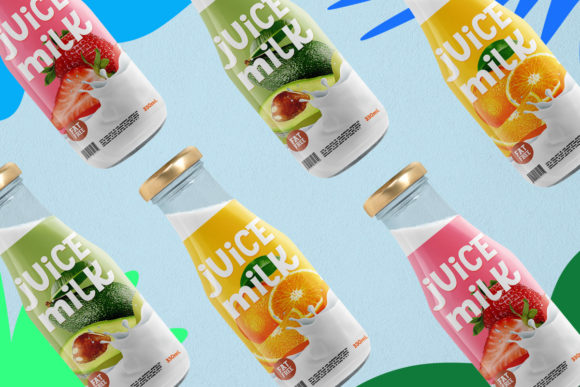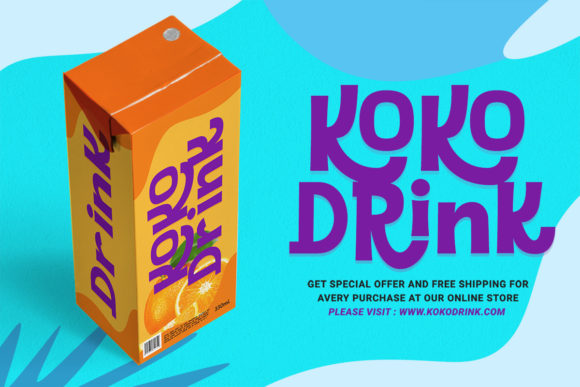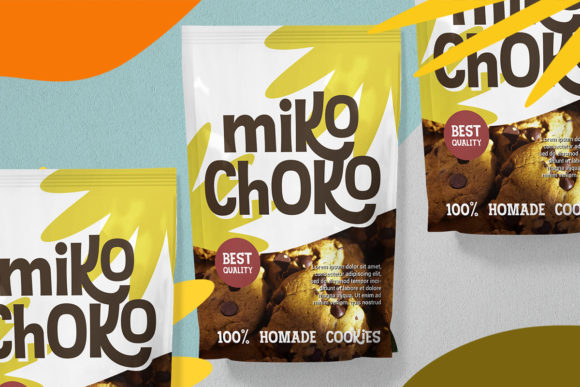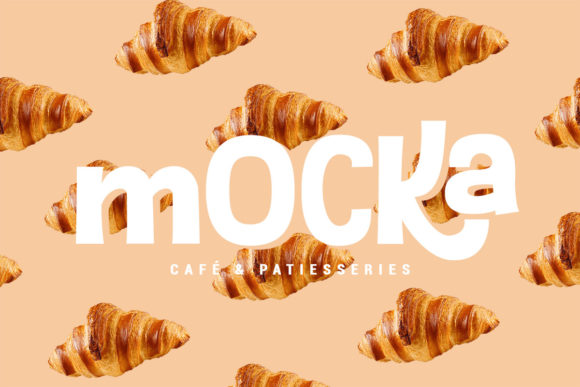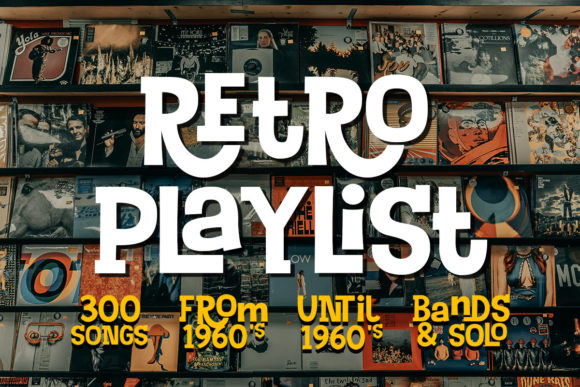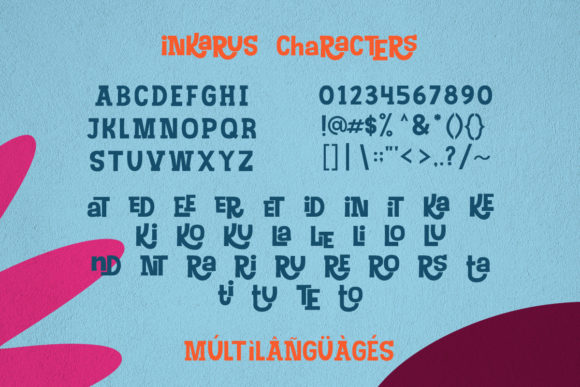
Introduction to Inkarus Font
Have you ever stared at a blank page, your creative juices running dry, and the cursor blinking impatiently on your screen? This is where many designers find themselves, searching for that elusive spark to ignite their next project. But what if I told you that a simple, yet powerful design resource could be the key to unlocking your full creative potential? Enter the Inkarus Font, a cool and vintage styled display font that’s sure to breathe new life into your high-quality designs.
With its versatility and charm, the Inkarus Font is a valuable asset for any designer, whether you’re working on a formal corporate project or an informal social media campaign. Its transparent background and sleek design make it an excellent choice for a wide range of creative projects, from posters to flyers, and everything in between.
Key Features of Inkarus Font
- High-quality font design ideal for creative projects, with a unique and elegant style.
- Features a transparent background, allowing for easy customization and seamless integration into various design elements.
- Unique characteristics include its sleek and modern aesthetic, making it perfect for branding, logos, and other visual identity projects.
- Designed to be highly legible, even at small font sizes, ensuring that your design message is conveyed clearly and effectively.
Honest Review: Inkarus Font
I recently had the chance to work with the Inkarus Font for a creative project, and I must say it was a great experience. As a designer, I’m always on the lookout for high-quality design resources that can elevate my work, and the Inkarus Font certainly delivered.
One of the things that stood out to me was the font’s unique and stylish design. It’s perfect for a variety of creative projects, from branding and advertising to digital products and more. The font’s sleek and modern aesthetic makes it a great addition to any design.
- ✨ Unique and stylish font that’s sure to stand out
- ✨ Transparent background, making it easy to work with in design applications
- ⚠️ Limited character set, may not be suitable for longer blocks of text
- ⚠️ Some users may find the font’s style to be too bold or overpowering
Overall, I was impressed with the Inkarus Font and would definitely recommend it to fellow designers. It’s a great addition to any design resource library, and its high-quality design and free download make it a great value for the price.
The Inkarus Font is perfect for creating logos, business cards, and other design elements. It’s also great for creating social media graphics, presentations, and posters.